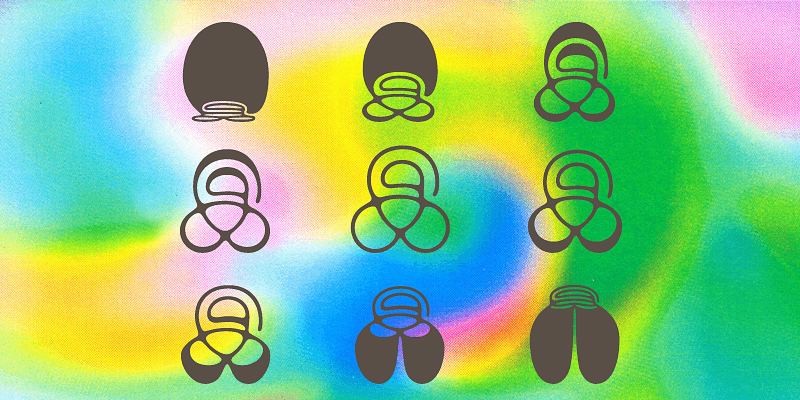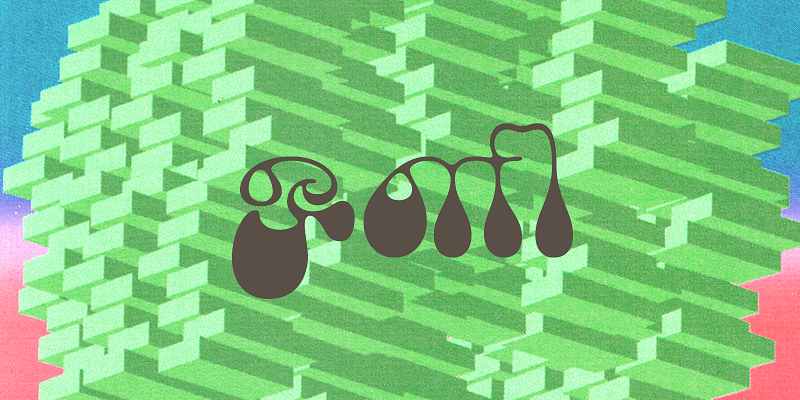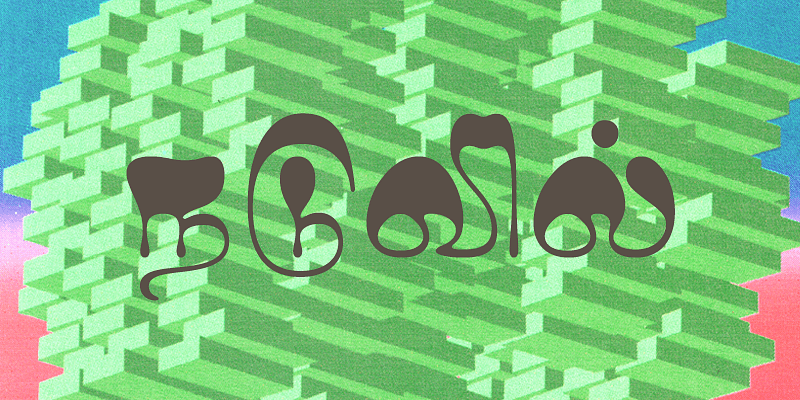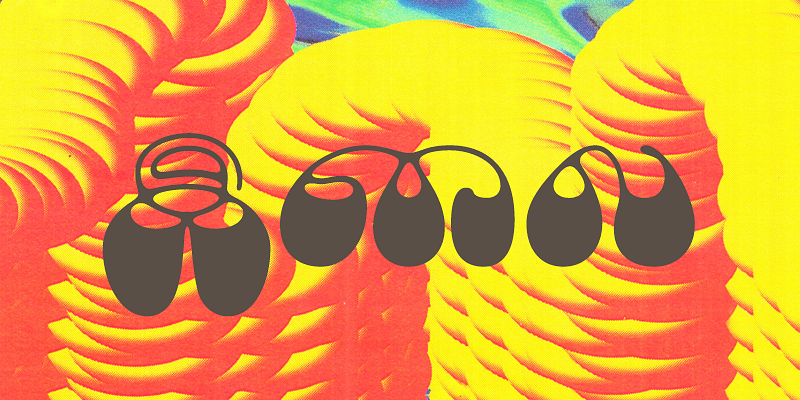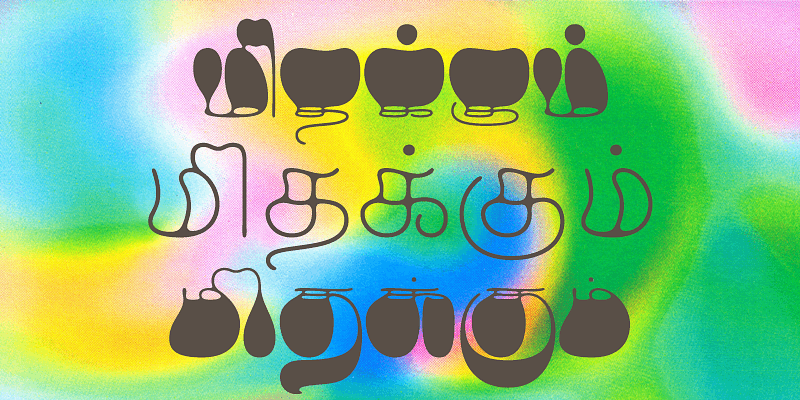
Ilai is an award-winning Tamil typeface, and is part of Universal Thirst’s mission to create new and experimental expressions for Indic typefaces. It’s designed for subheadings, posters, and other display uses, including branding.
The typeface solely supports the Tamil script and has no Latin support. If you are looking for a great Latin companion to it, we strongly recommend Cheee by OH no Type Co.